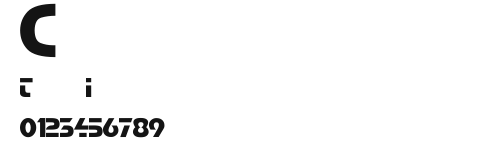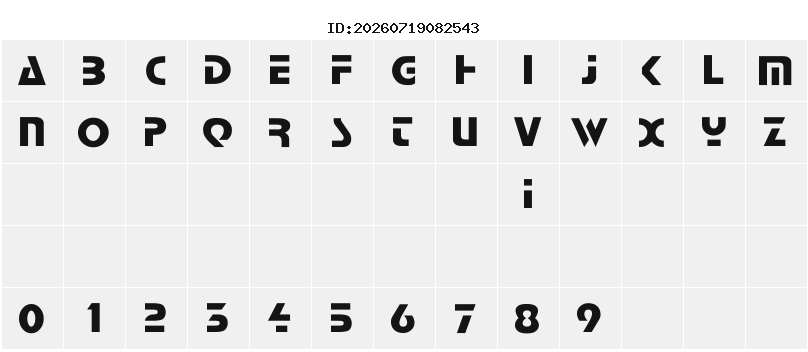
Comaro Preview
• Font Name: Comaro
• Full Font Name: Comaro
• PostScript Name: Comaro
About Comaro.ttf
Comaro.ttf is a modern, elegant sans-serif font designed for ultimate readability and visual harmony. Perfect for branding, headlines, web design, and print materials.